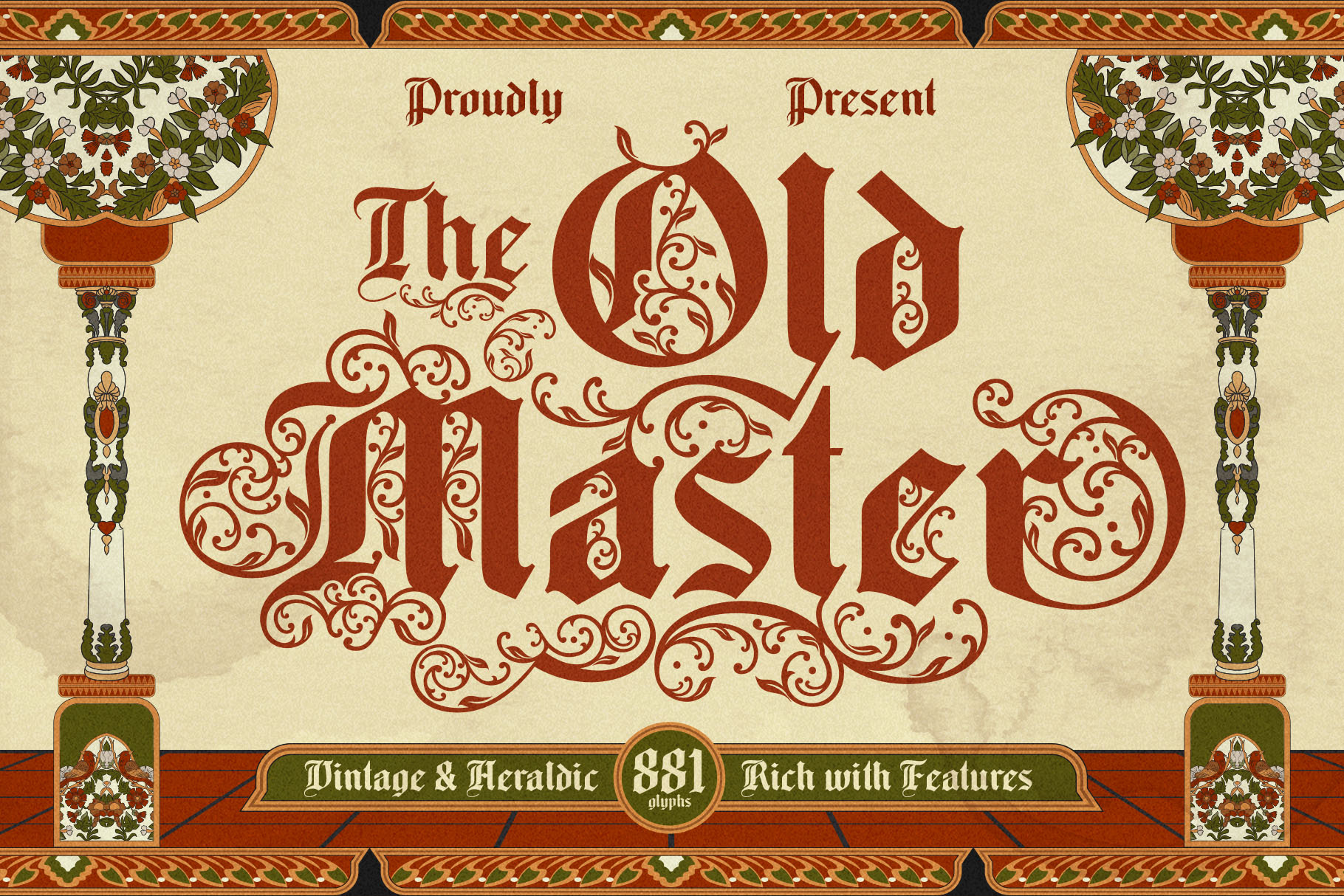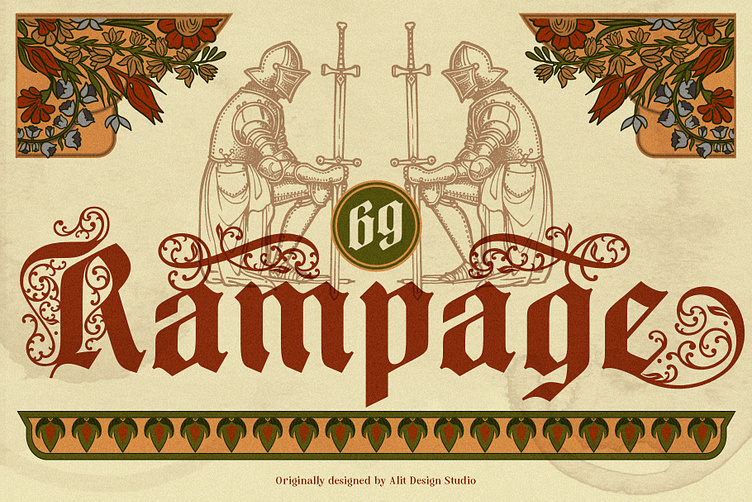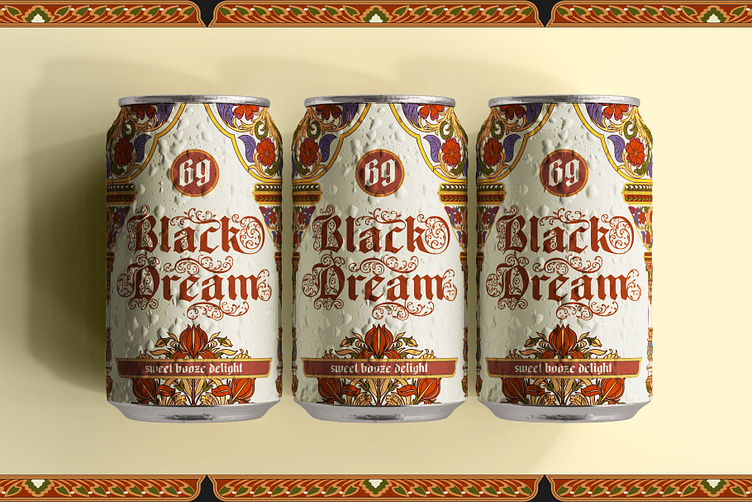
Old Master Typeface
Old Master Typeface is a lavishly detailed blackletter font that brings the grandeur of medieval script and Renaissance ornamentation into the modern era. Drawing inspiration from classic calligraphy and historical lettering traditions, this typeface is designed to evoke prestige, elegance, and old-world craftsmanship in every stroke.
Featuring exquisite ornamental flourishes woven directly into its letterforms, Old Master is not just a font—it's a celebration of visual storytelling. From elaborate uppercase characters adorned with curls and leaf-like accents to the sharply defined lowercase set, every letter has been carefully sculpted to balance legibility with artistic expression.
Whether you're designing book covers, vintage packaging, theatrical posters, wedding stationery, or branding for high-end products, Old Master adds a powerful sense of history and drama to your work.
✦ Key Features:
881 Total Glyphs A comprehensive character set including uppercase, lowercase, numerals, punctuation, and special characters, ensuring full typographic versatility.
Stylish Alternates & Decorative Ligatures Unlock endless customization with an array of alternative glyphs and graceful ligatures that allow for smooth, flowing typography and beautiful combinations.
Multilingual Support Supports a wide range of Latin-based languages, making it suitable for international design projects.
Rich Ornaments & Flourishes Elegantly intertwined flourishes embedded within the characters for enhanced aesthetic impact and traditional charm.
✦ Design Use Suggestions:
Heraldic logos and emblems
Book and album covers
Vintage labels and liquor branding
Historical-themed posters or movie titles
Gothic wedding invitations
Editorial design and display headlines
Old Master Typeface proudly blends historic influences with modern functionality, offering a powerful visual tool for designers who appreciate the artistry of old-world lettering and the finesse of decorative type.
Let your next project echo the voices of scribes, nobles, and artisans of the past—with Old Master, every letter tells a story.